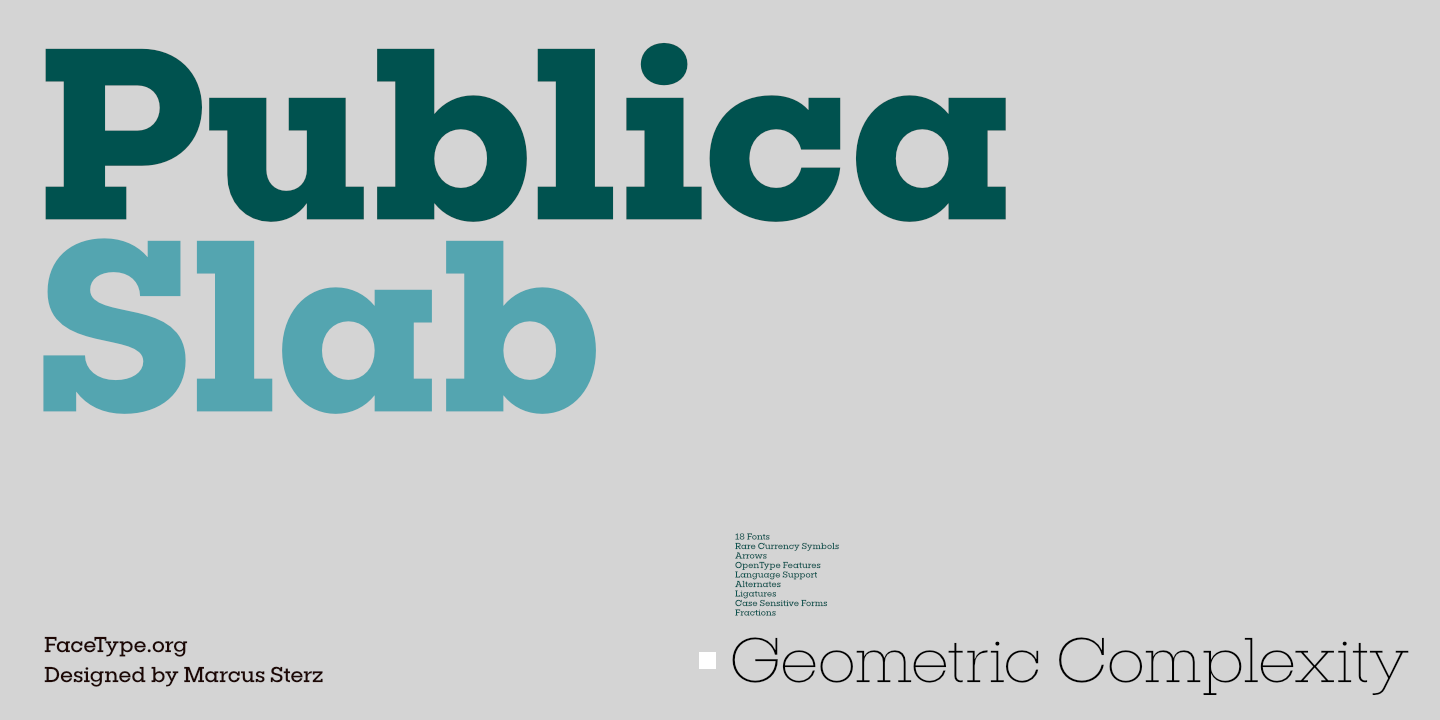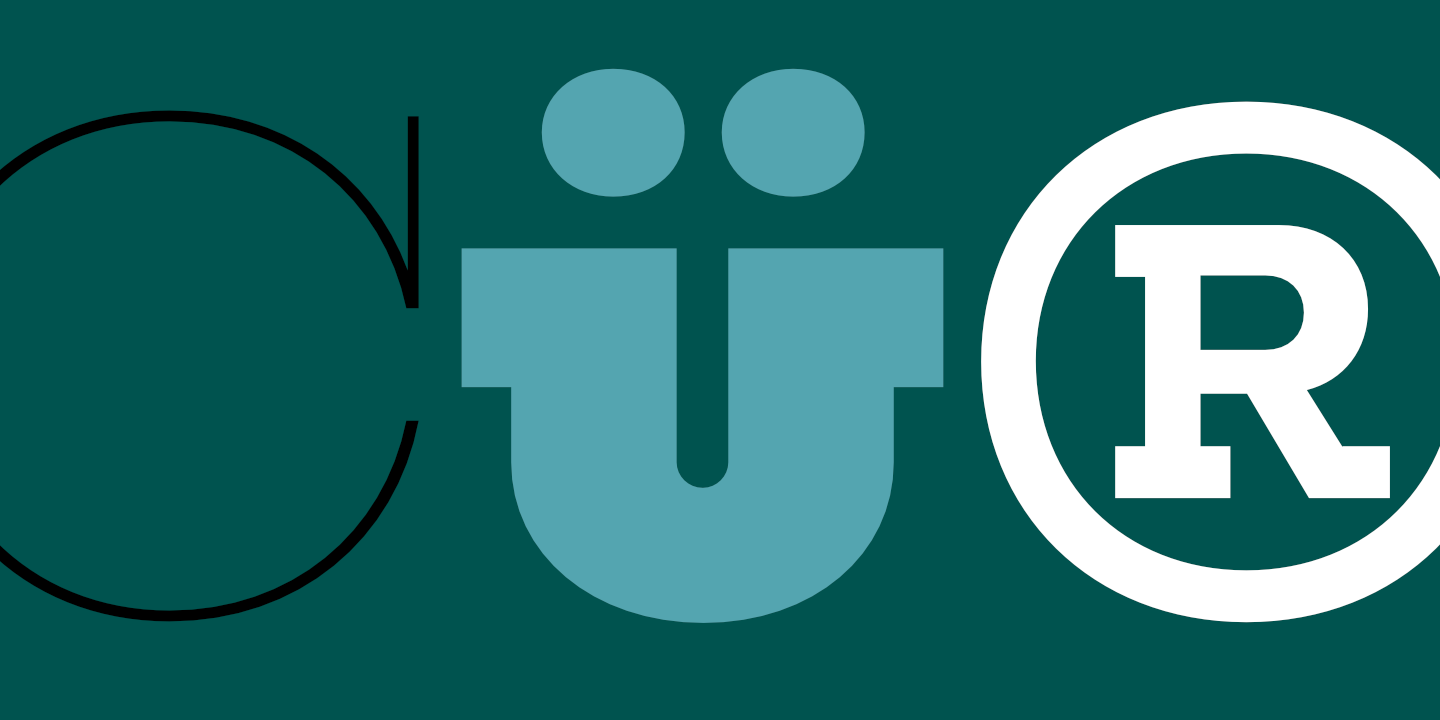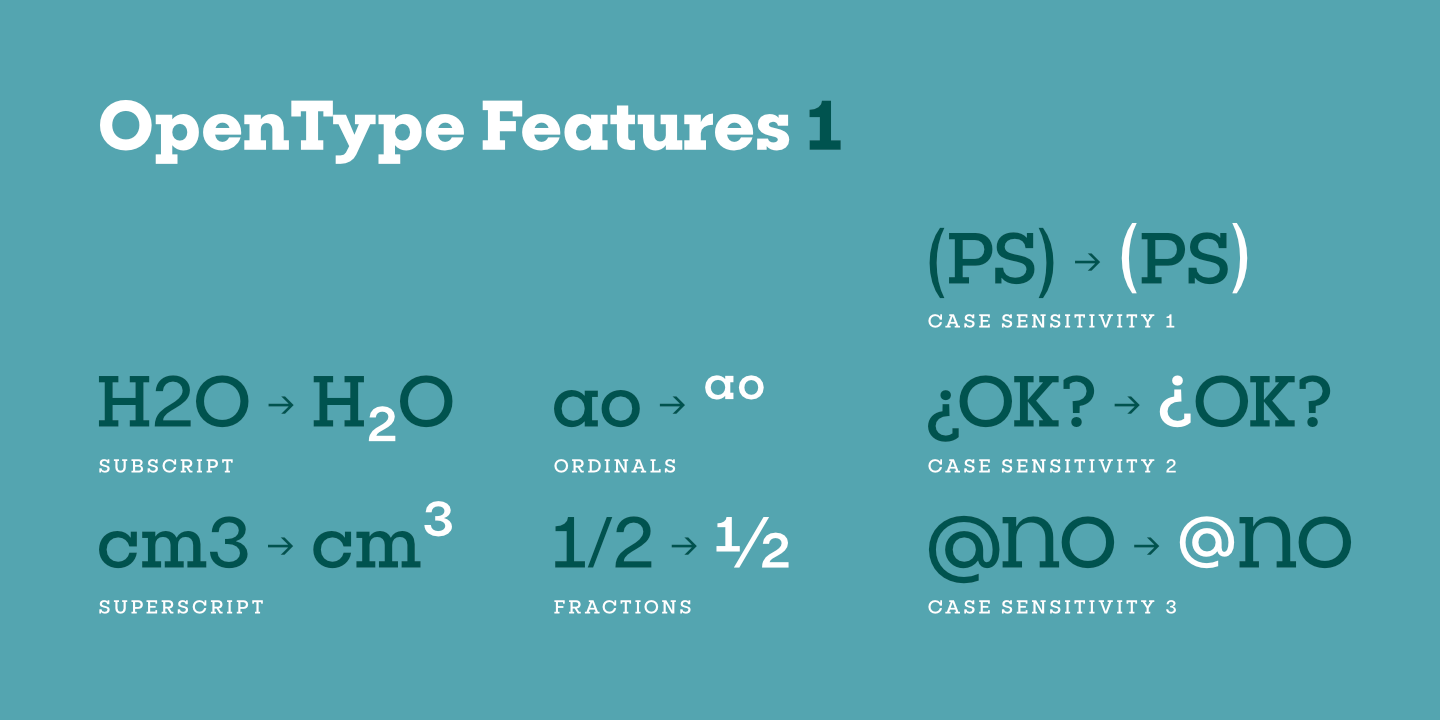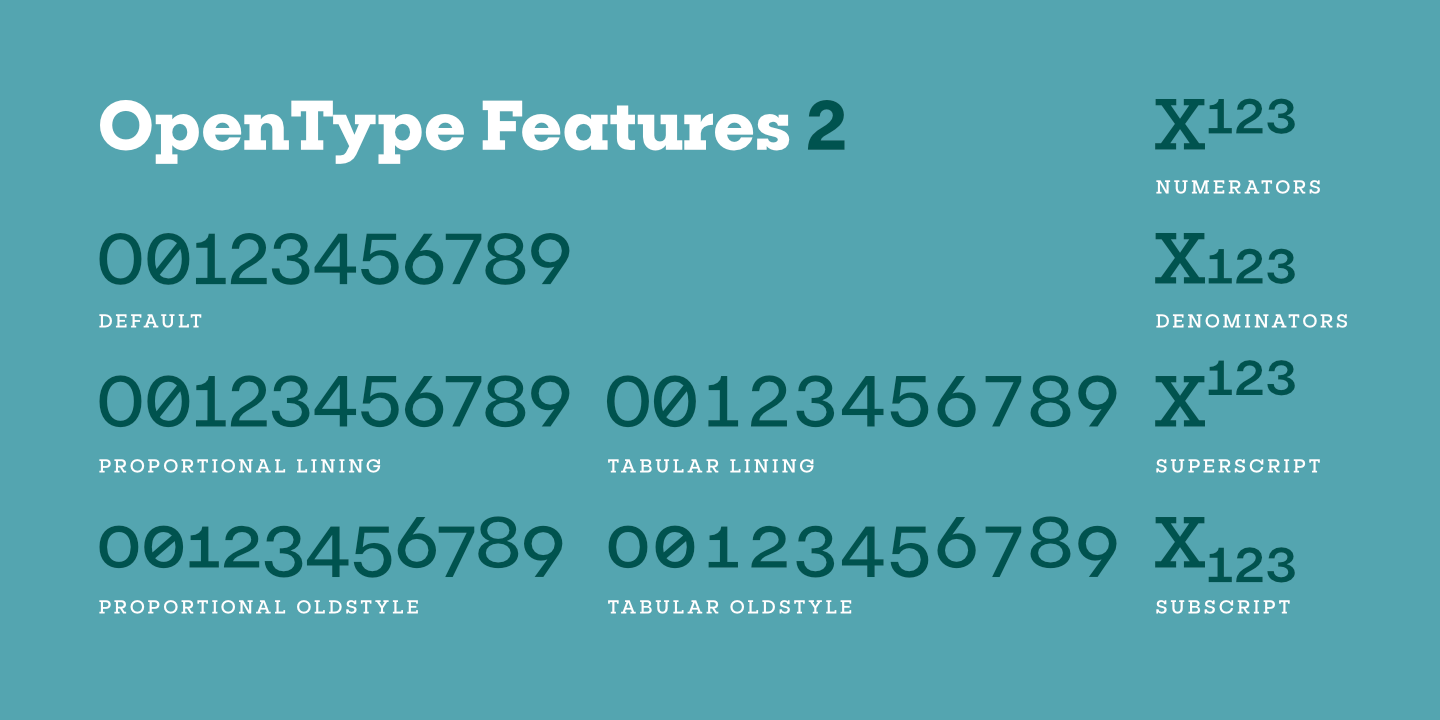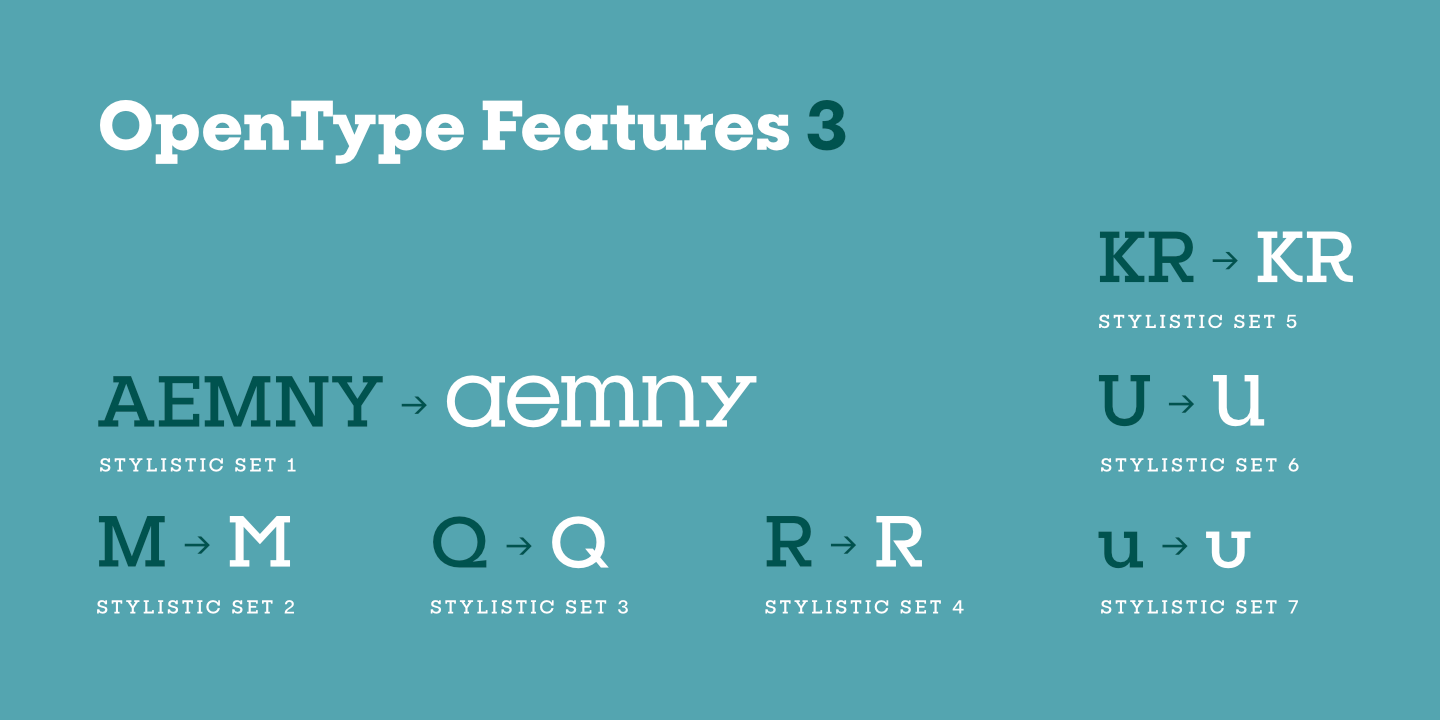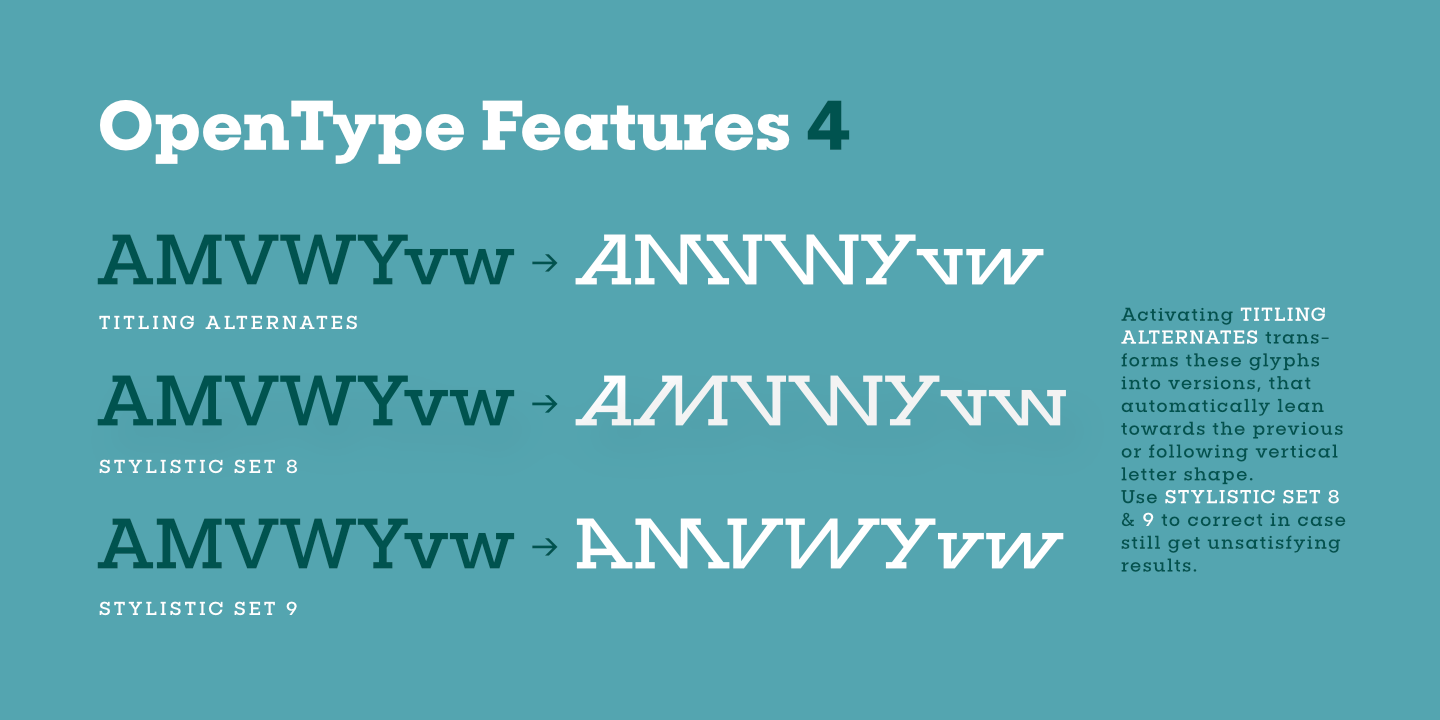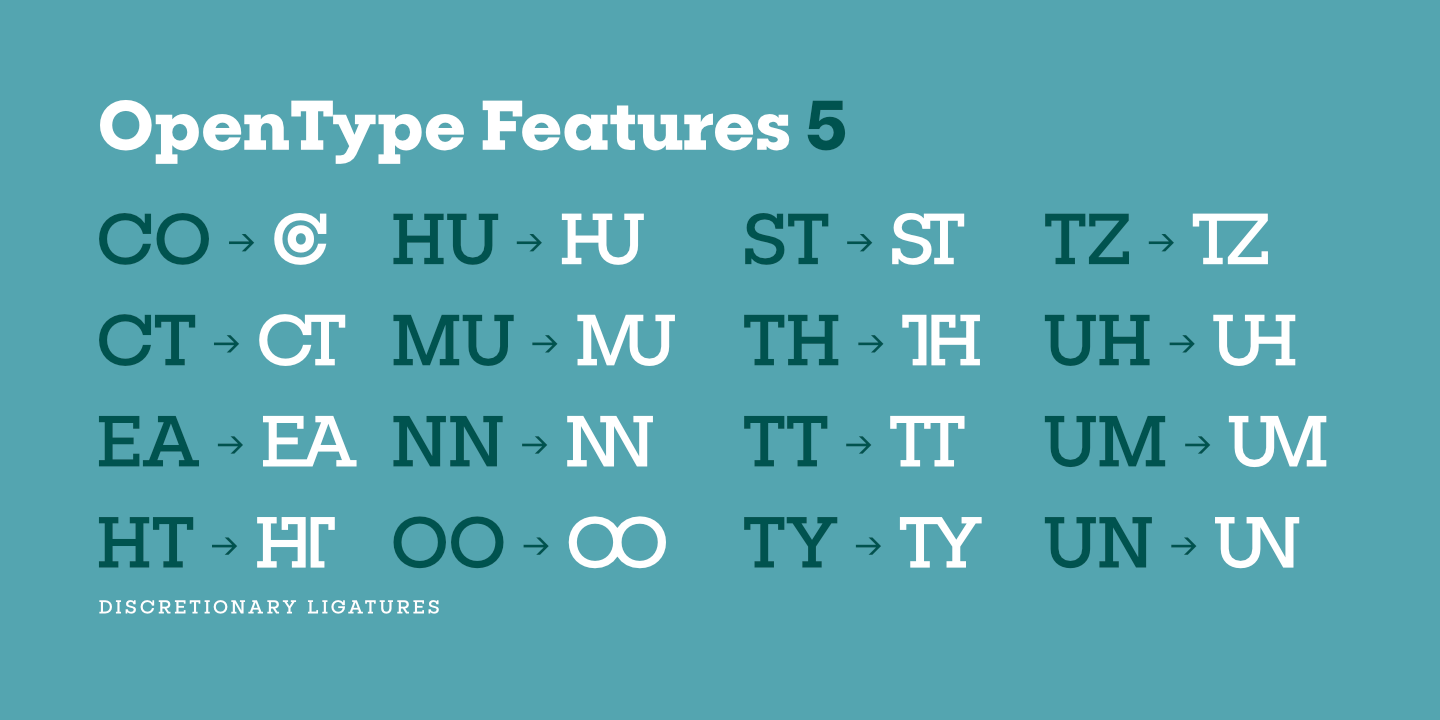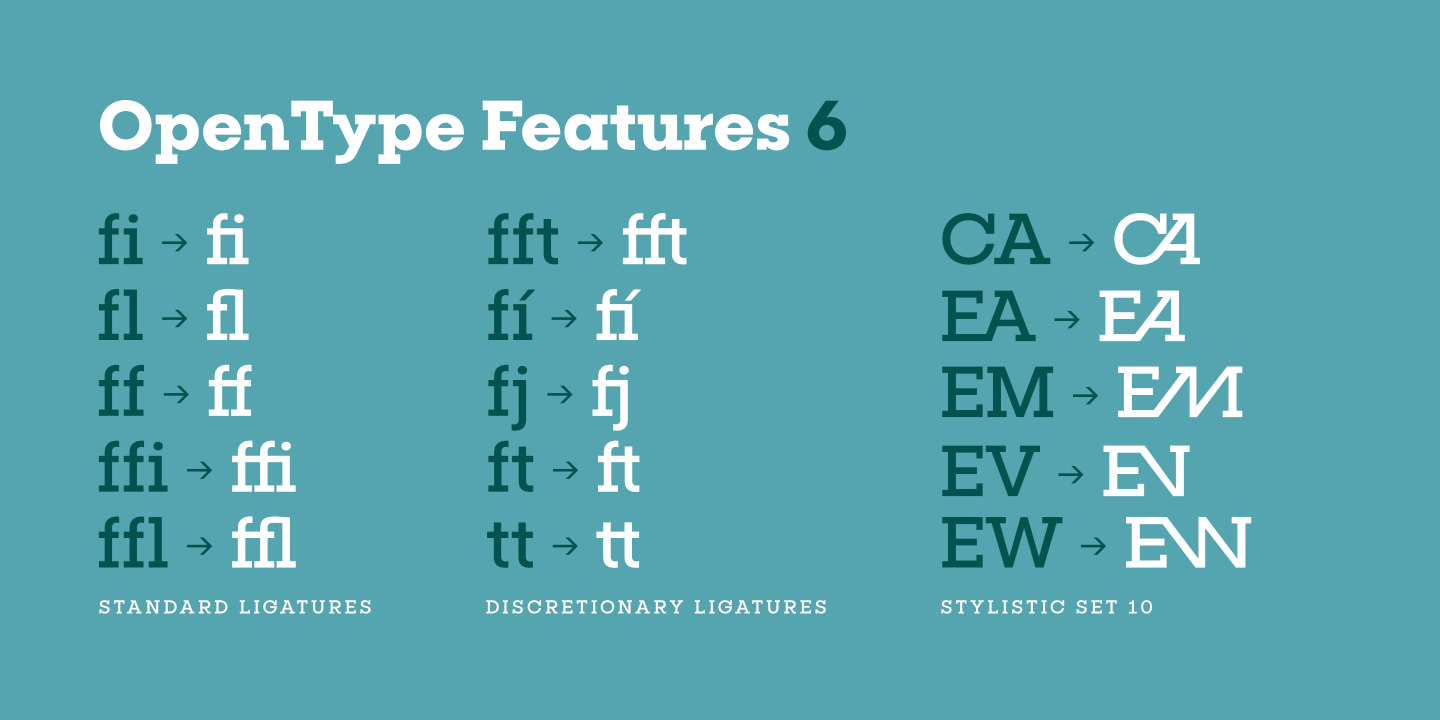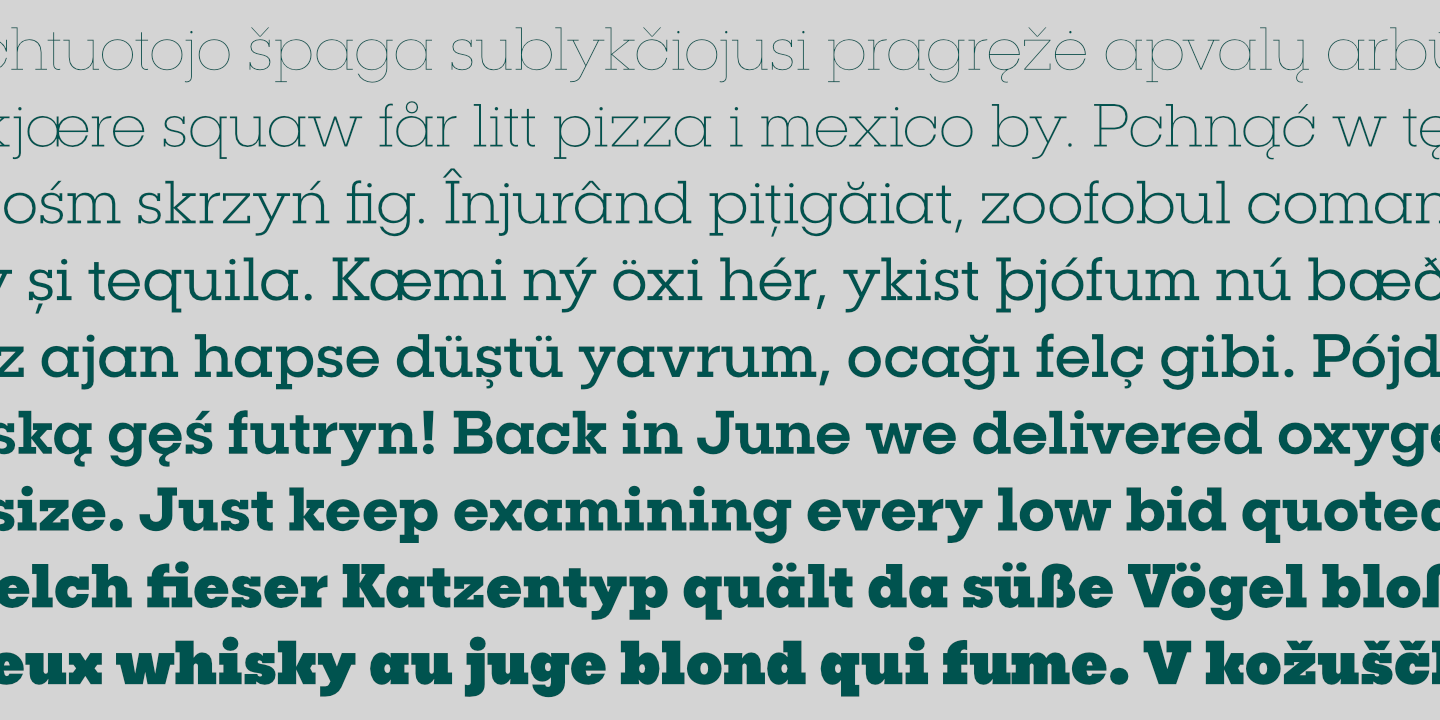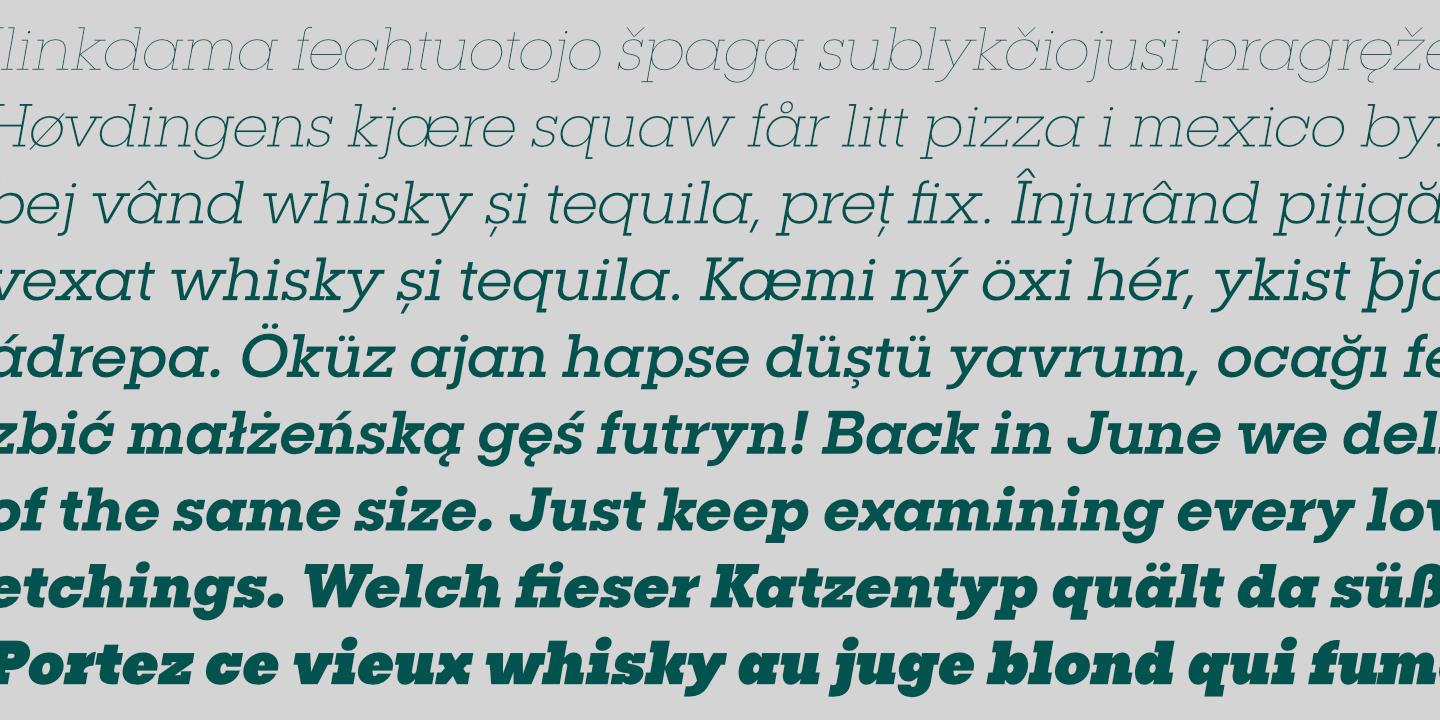
‘Publica Slab’ is the serifed sister of Publica Sans, Publica Soft and Publica Play – packed with subtle open type features, tabular options, rare currencies signs and symbols and arrows, this font family provides everything you need for big design tasks like signage, corporate design and magazine design.
Designer: Marcus Sterz